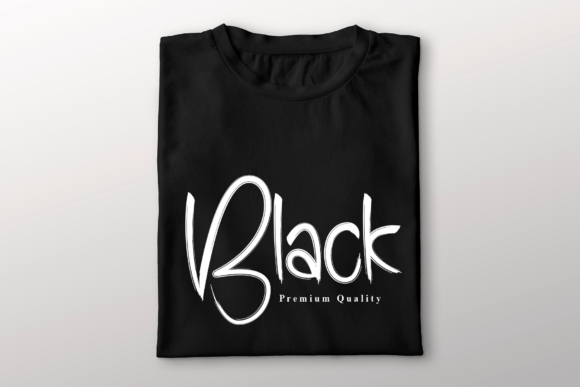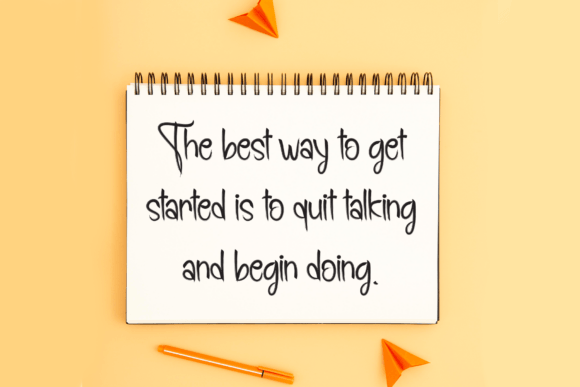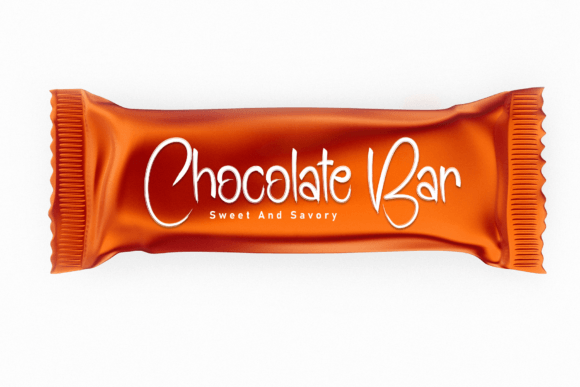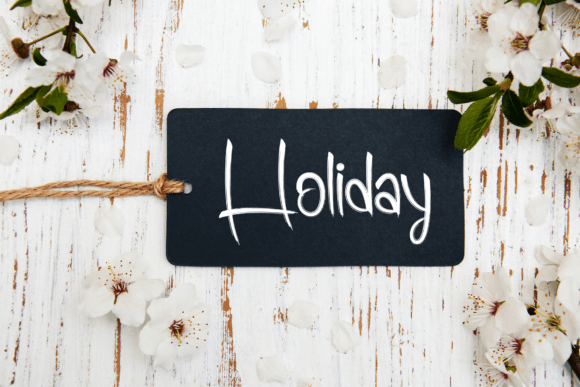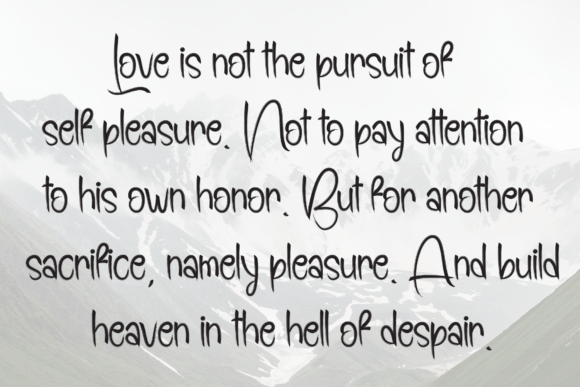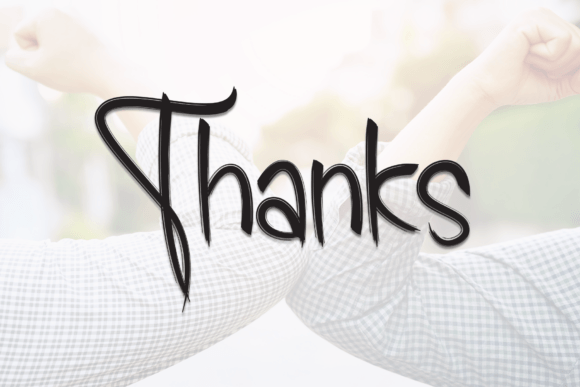
Bring a Smile to Your Design Work
Do you remember the moment when you saw a beautifully crafted wedding invitation that caught your eye? The perfect blend of colors, elegant design, and a dash of personality made it truly unforgettable. For designers, this is exactly what we strive to create – a visual masterpiece that leaves a lasting impression.
Enter the Better Together Font, a charming handwritten display font designed to add a sprinkle of joy to your creations. This delightful font is perfect for lending an inviting touch to wedding invitations, cards, and any design that needs a dash of warmth and friendliness. As a valuable tool in your design arsenal, the Better Together Font helps you turn ordinary text into adorable, eye-catching, and memorable messages.
Better Together Font Key Features
- Unique Characteristic: Designed to promote inclusivity and diversity through its typography, making it an ideal choice for social justice and advocacy campaigns
Designer Review: Better Together Font
I recently had the chance to work with the Better Together Font, and here’s my honest take.
- Unique and creative design elements – the font’s playful and hand-drawn feel is perfect for projects that need a personal touch.
- Excellent legibility – even at small sizes, the font remains clear and easy to read.
- Good support for Latin-based languages – I didn’t encounter any issues with text rendering or layout.
- Limited language support – the font may not be suitable for projects that require extensive language support, such as multilingual websites.
- No bold or italic variants – this might limit its use in certain design contexts where emphasis is necessary.
- Not ideal for body text – while the font works well for headings and titles, it may not be the best choice for large blocks of text.
Overall, the Better Together Font is a great choice for projects that need a unique, creative touch. While it has some limitations, it’s a solid option for designers who want to add some personality to their work.
Practical Application Guide for “Better Together Font”
The “Better Together Font” is ideal for:
- Creating social media graphics and posts.
- Designing wedding invitations and stationery.
- Developing branding materials for businesses and organizations.
Alternatives to Better Together Font for Designers
Great Vibes Font is a beautiful, elegant script font that is perfect for adding a touch of sophistication to your designs. It is ideal for use in headings, titles, and other areas where a decorative font is needed. Great Vibes Font is a more formal alternative to Better Together Font, making it suitable for business and professional applications.
Comparison to Better Together Font: Great Vibes Font has a more refined and polished look compared to Better Together Font, which has a more playful and casual feel.
Pacifico Font is a stylish and modern script font that is perfect for adding a touch of elegance to your designs. It is ideal for use in headings, titles, and other areas where a decorative font is needed. Pacifico Font is a more versatile alternative to Better Together Font, making it suitable for a wide range of applications, from fashion to technology.
Comparison to Better Together Font: Pacifico Font has a more modern and sleek look compared to Better Together Font, which has a more vintage and eclectic feel.
Carolyna Pro Font is a beautiful and elegant script font that is perfect for adding a touch of sophistication to your designs. It is ideal for use in headings, titles, and other areas where a decorative font is needed. Carolyna Pro Font is a more luxurious alternative to Better Together Font, making it suitable for high-end applications, such as luxury fashion and jewelry.